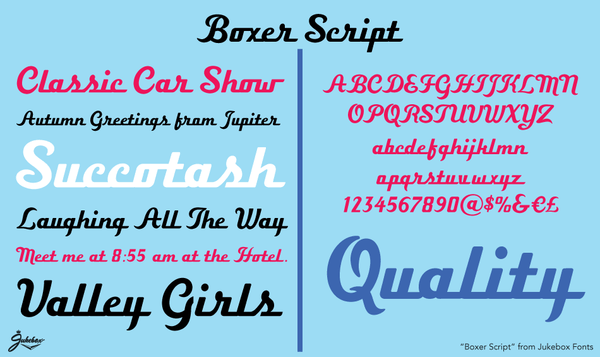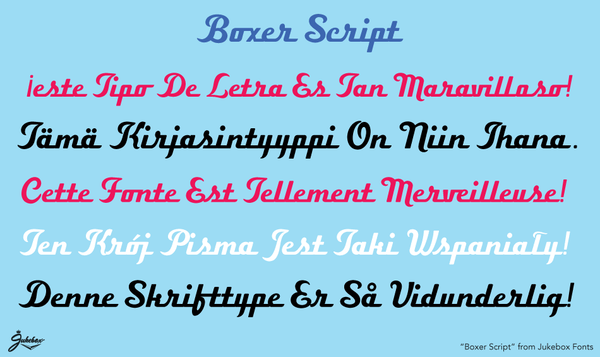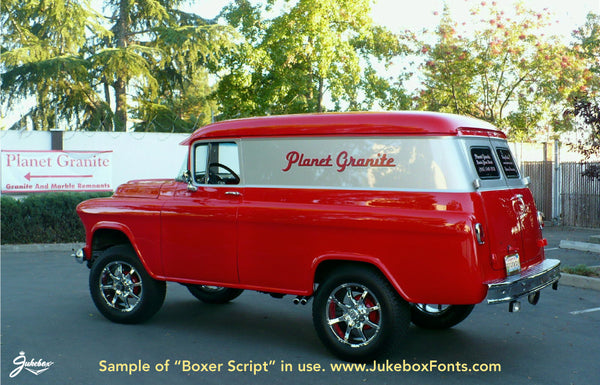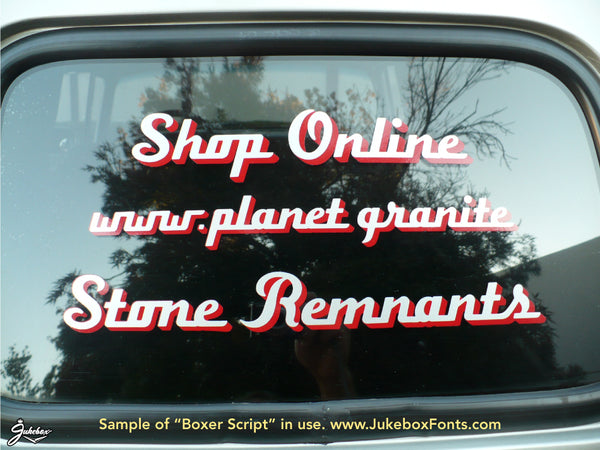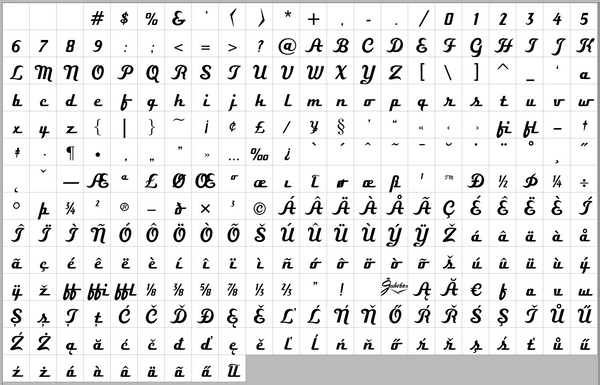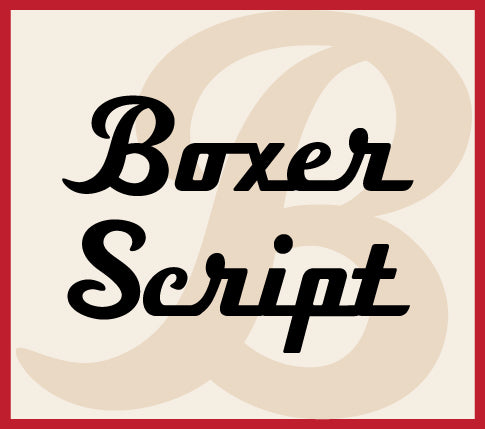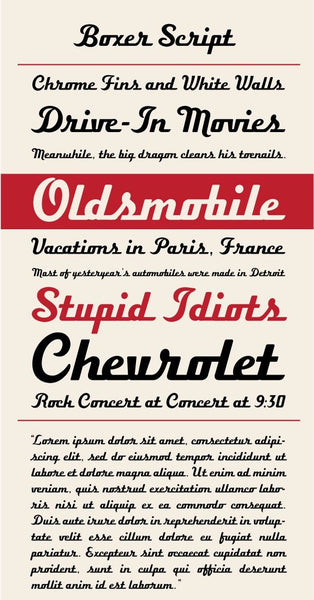
Boxer Script
Boxer Script is a streamlined 1940s style script font that captures the look of chrome car lettering that once adorned classic vehicles. The font connect along the baseline for most letters, but has some alternates to connect at the top for both typogrpahic variety and a more flowing appearance. It is perfect for any design or project that needs a warm and vintage feel.